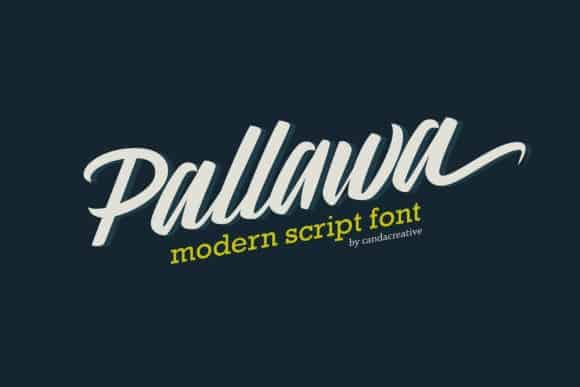
Pallawa Modern Script Font
Pallawa Font is feminine and modern bold script font, created from handmade creative brush become a lovely typography style. You can deliver any creative project use this font and bring them to become an adorable products.